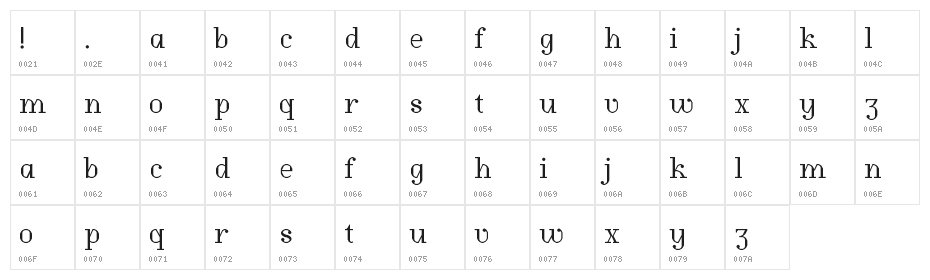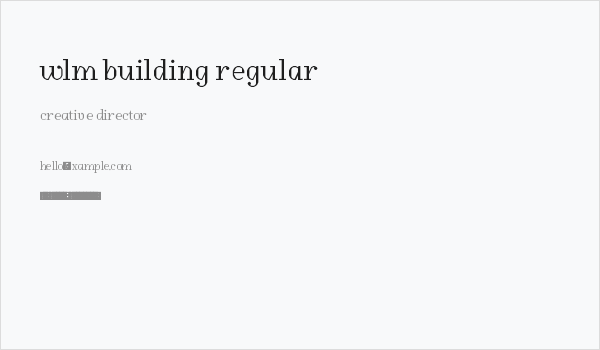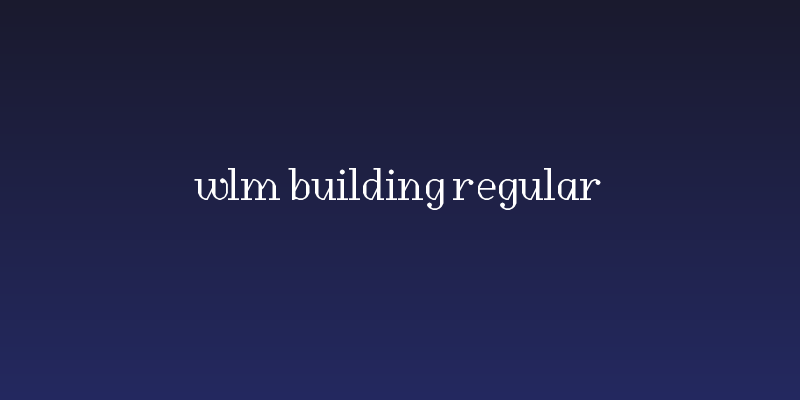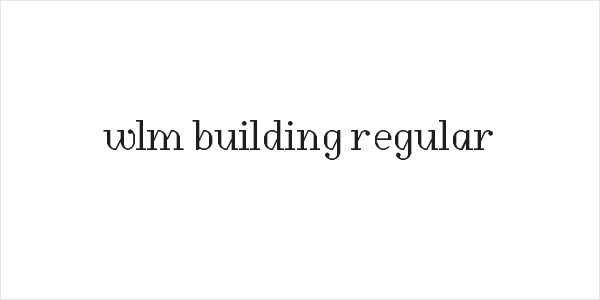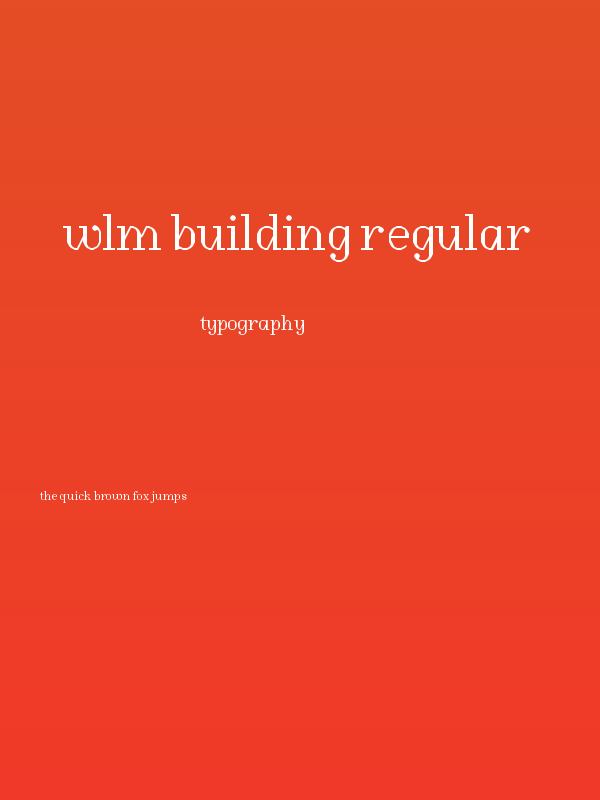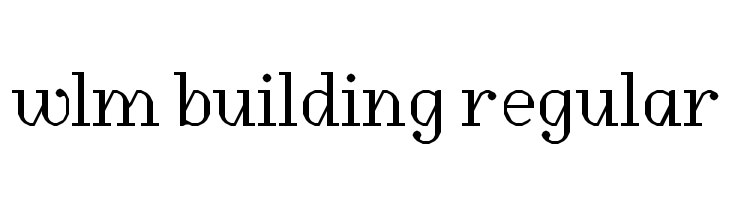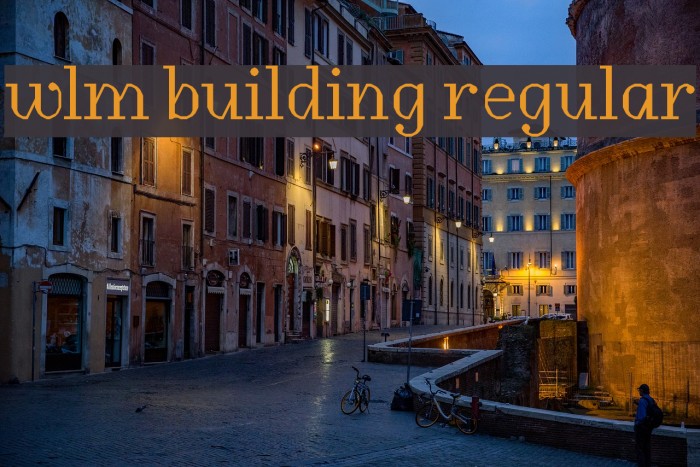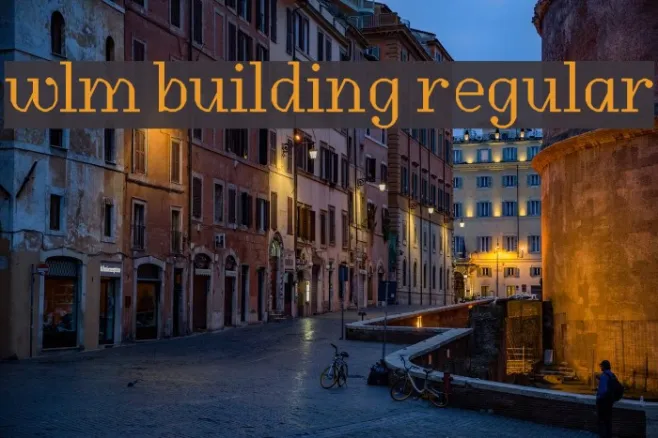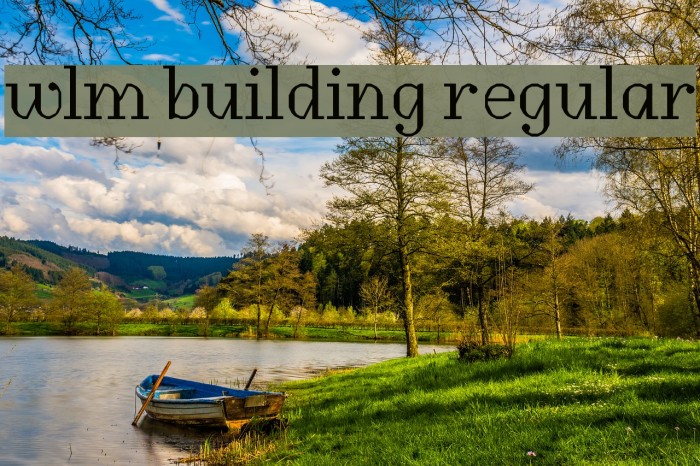
WLM Building Regular Font
WLM Building Regular Description
This font features a unique blend of modern and vintage aesthetics, characterized by its distinct slab serif style. The letters exhibit a playful yet structured form, with rounded edges and consistent stroke widths that provide a balanced appearance. The uppercase and lowercase letters maintain a cohesive design, while the numerals and special characters integrate seamlessly with the overall style. The font's clean lines and geometric shapes make it versatile for various design applications, offering both readability and visual interest.
| Overall Style | Modern, Vintage |
| Use Case | Headlines, Logos, Editorial design |
| Proposed Projects | Ideal for branding projects, editorial design, packaging, and signage where a modern yet classic look is desired. |